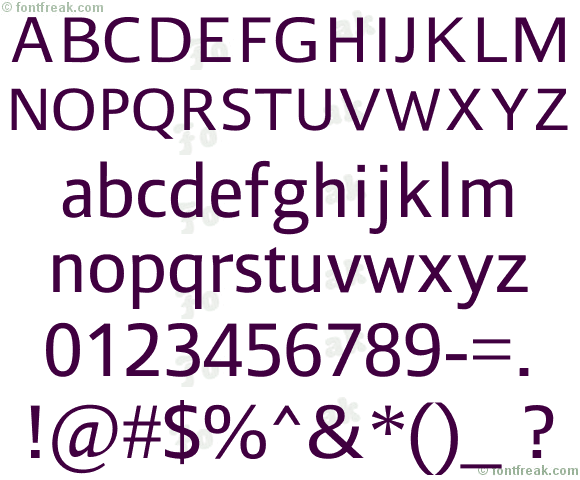
Liberty Sans Regular
About Liberty Sans Regular
Liberty Sans Regular, designed by Kelvin Ma, is a versatile sans-serif font that embodies a clean and modern aesthetic. This typeface is based on the well-known Liberation Sans family, making it a reliable choice for contemporary design projects. The font features a balanced stroke weight that provides excellent legibility, while its minimal contrast enhances readability across various sizes. The spacing is thoughtfully adjusted, allowing for comfortable text flow, making it suitable for both print and digital applications.
One of the standout features of Liberty Sans Regular is its simplicity and elegance, making it ideal for multiple use cases. Graphic designers can leverage this font for branding materials, such as logos and business cards, where clarity and professionalism are paramount. Small business owners may find it perfect for restaurant menus, as its straightforward design allows for easy reading of item descriptions. Content creators can utilize this font in social media graphics, ensuring their posts stand out while maintaining a polished look. Additionally, it works well for web design, providing a modern touch to websites that aim for a sleek user experience.